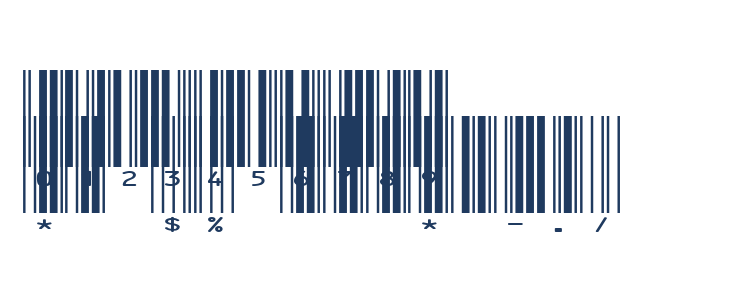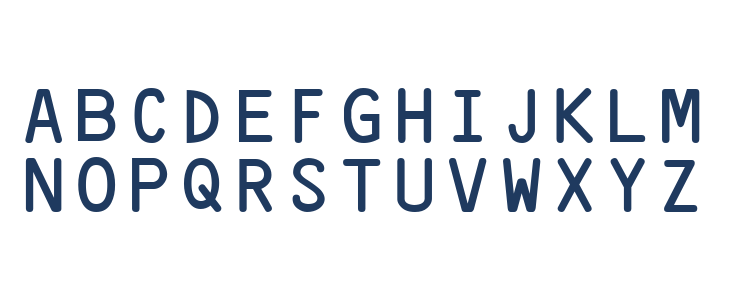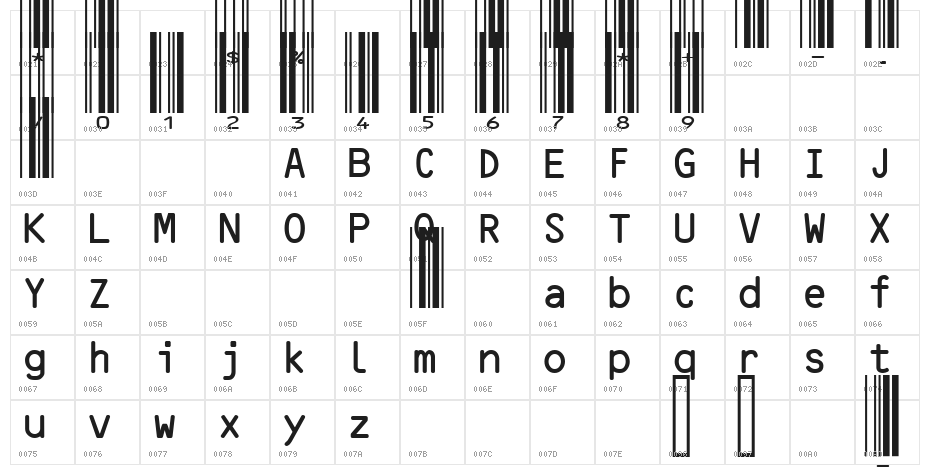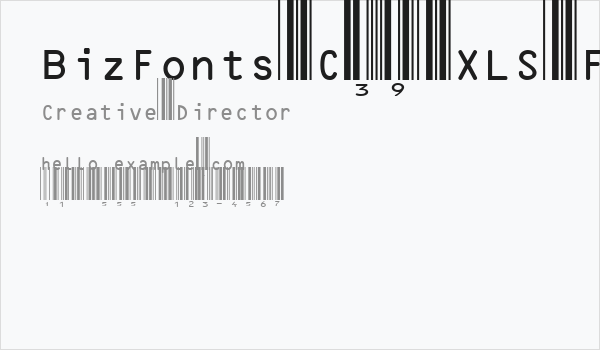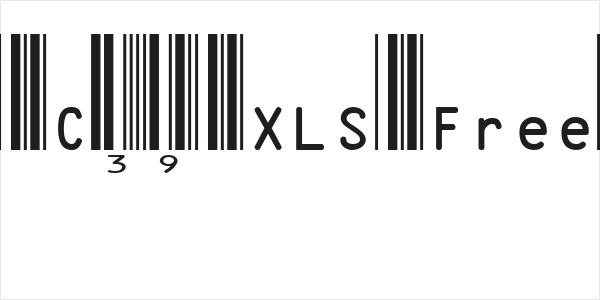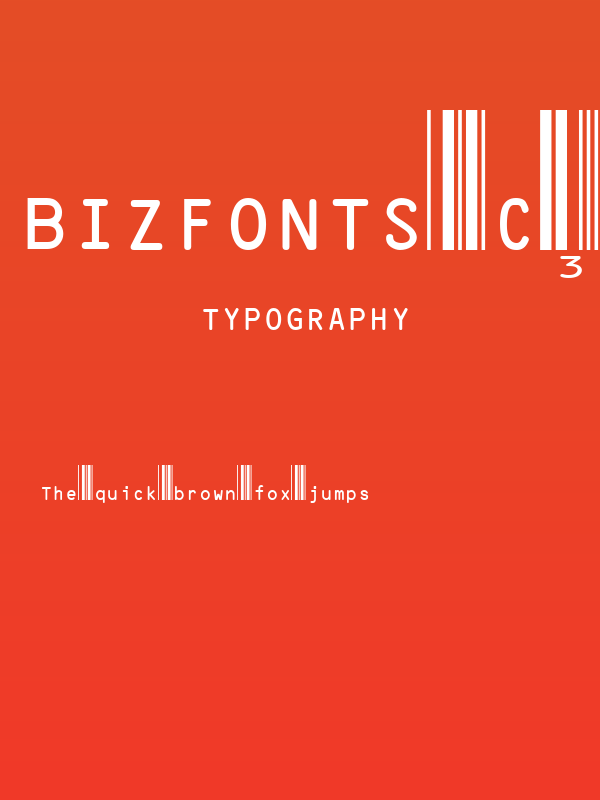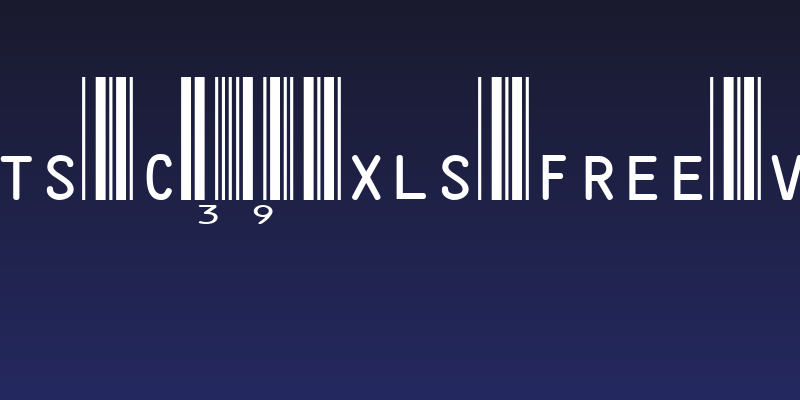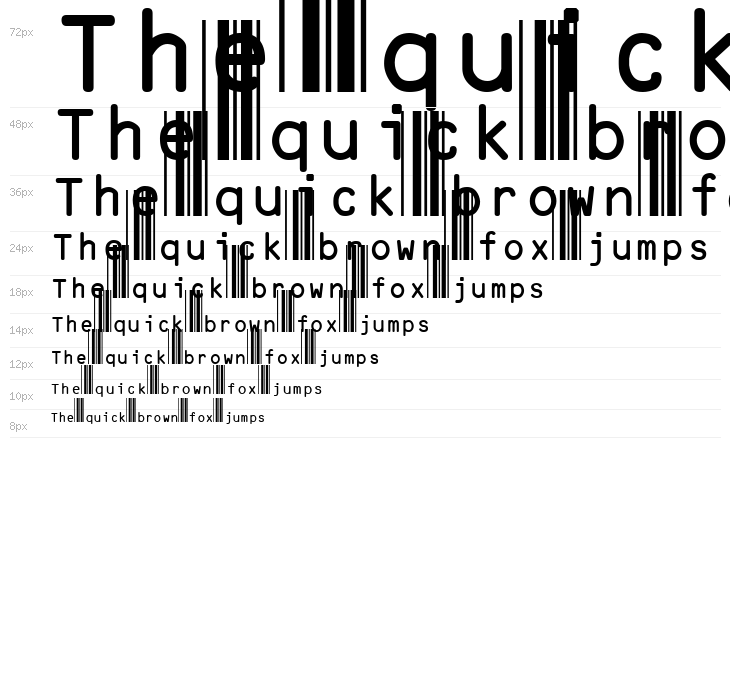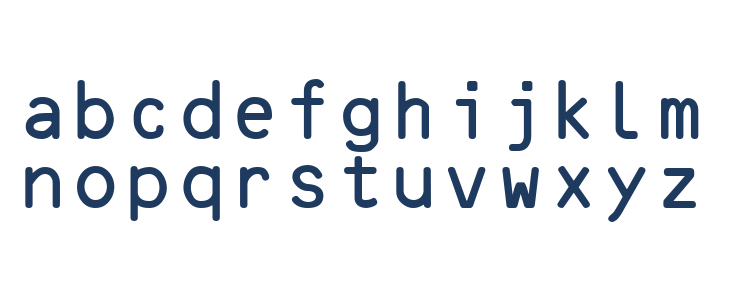
BizFonts C39 XLS Free Version Font
BizFonts C39 XLS Free Version Description
A monospaced, geometric font with tall, narrow characters and consistent stroke width, resembling barcode or machine-readable typefaces. The glyphs are highly legible, with minimal ornamentation and a technical, utilitarian appearance.
Excel Barcode Font by BizFonts.com
| Overall Style | Technical, Industrial, Modern |
| Use Case | Barcodes, Labels, Technical uses |
| Proposed Projects | Barcode labels, inventory tags, industrial signage, technical documentation, machine-readable forms. |